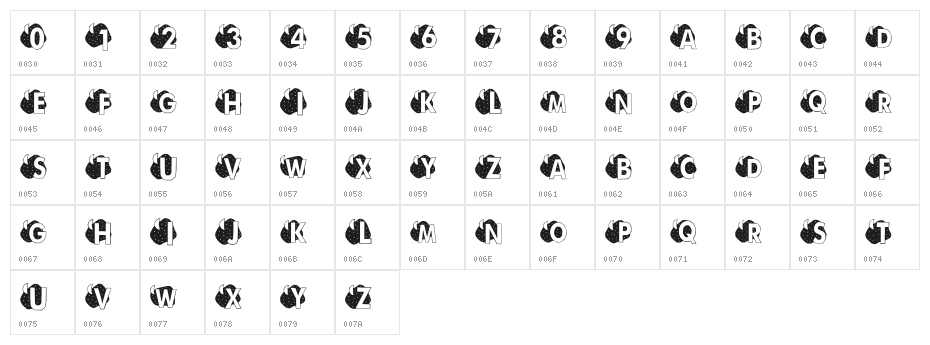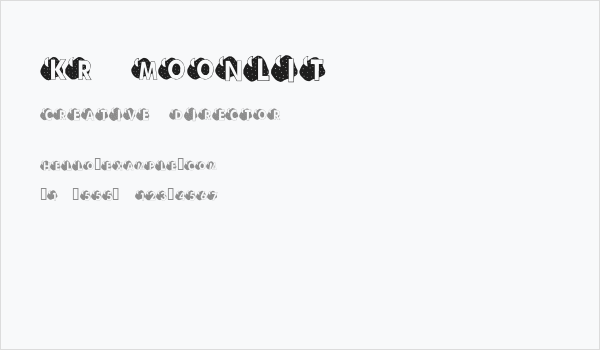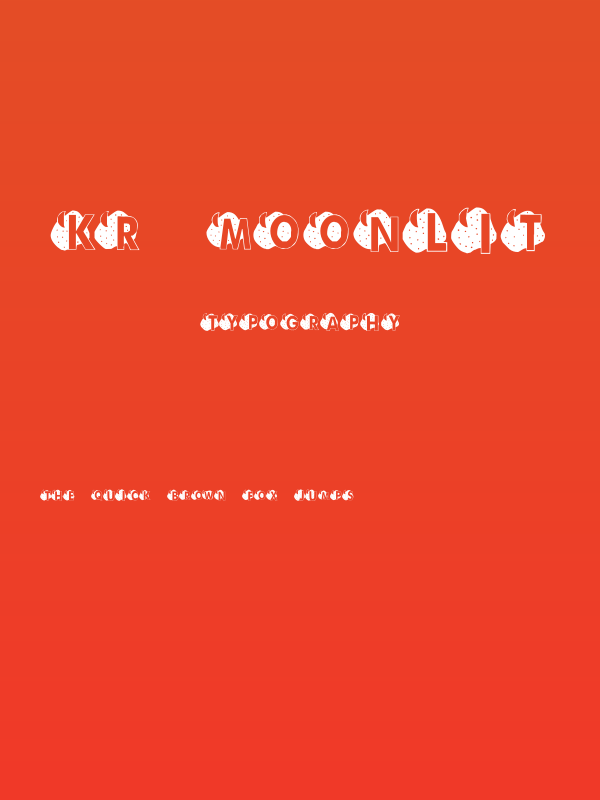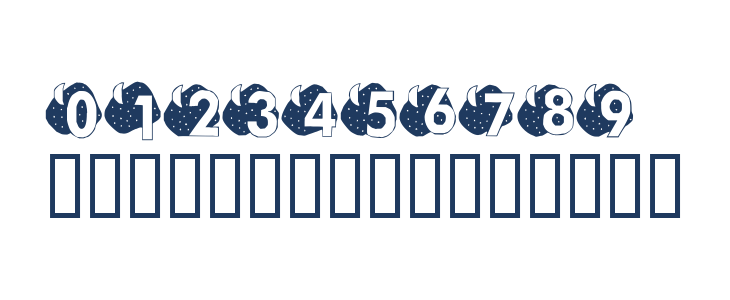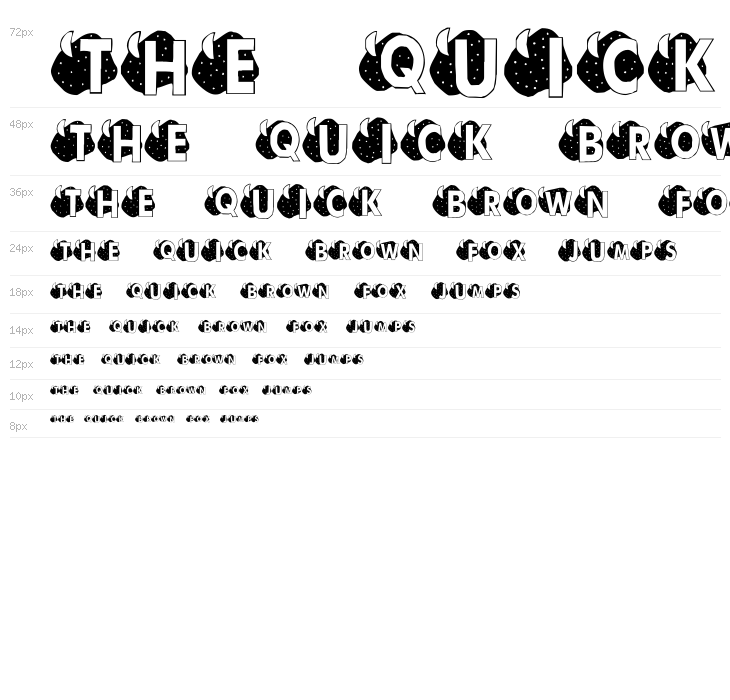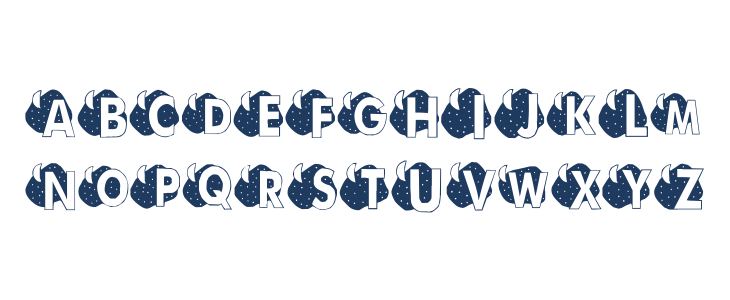
KR Moonlit Font
KR Moonlit Description
This playful and whimsical font features a unique design where each character is adorned with a crescent moon and starry pattern, creating a celestial theme. The letters are bold and have a decorative style, making them stand out with their intricate detailing. The combination of solid black and white elements gives the font a striking contrast, enhancing its visual appeal. The font is perfect for projects that require a touch of fantasy or a night-time theme, such as children's book covers, party invitations, or themed event posters.
| Proposed Projects | Ideal for children's books, party invitations, themed event posters, and fantasy-themed designs. |